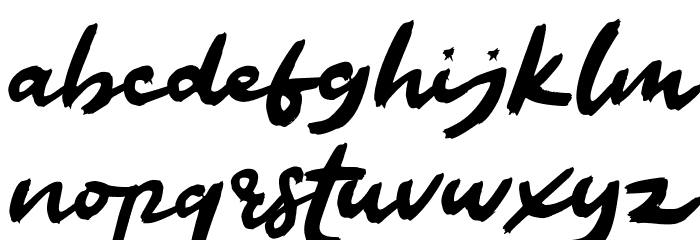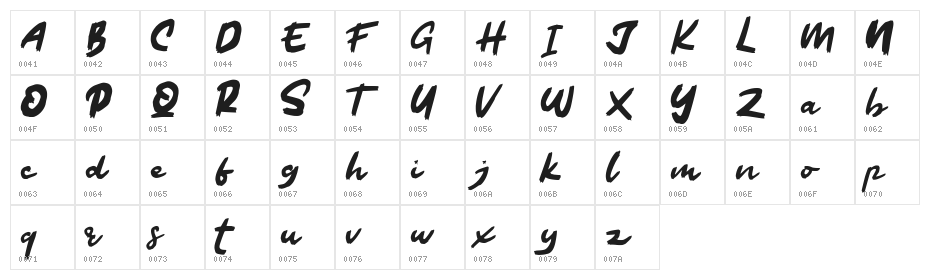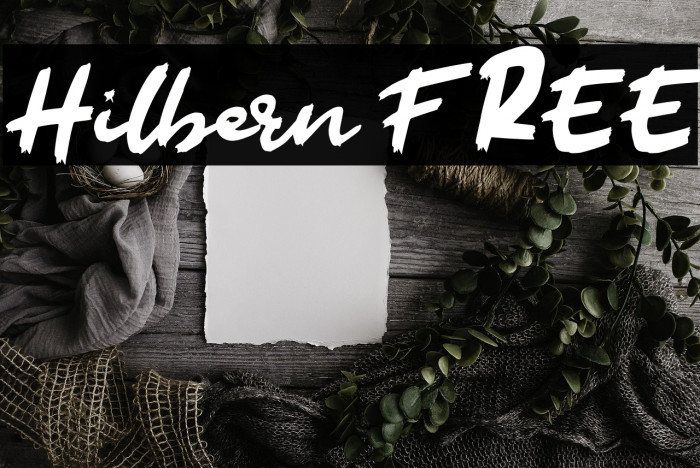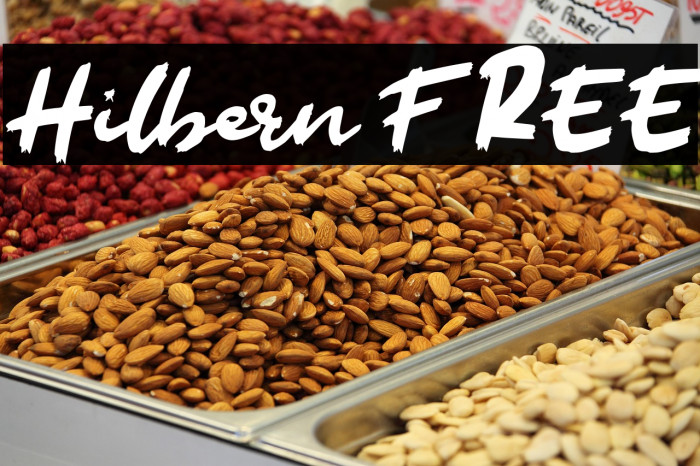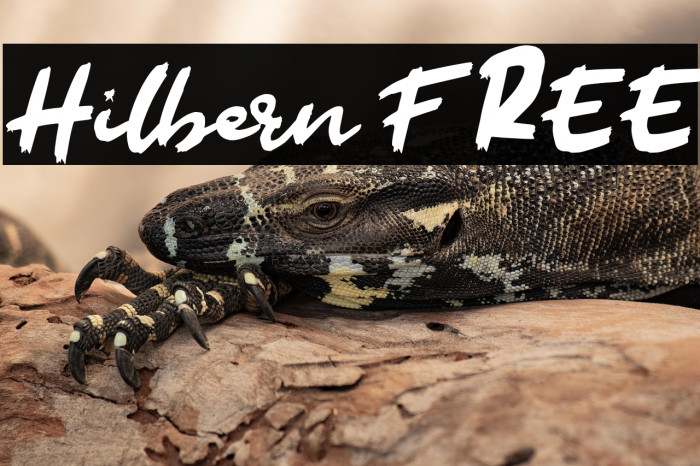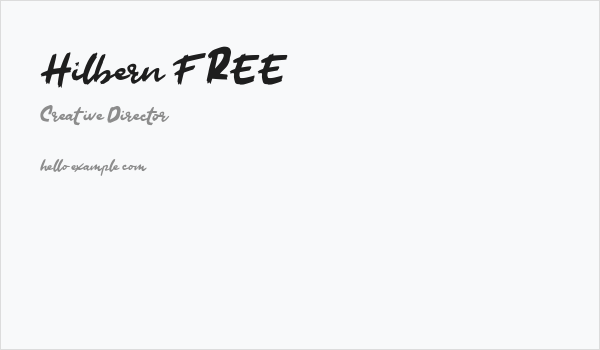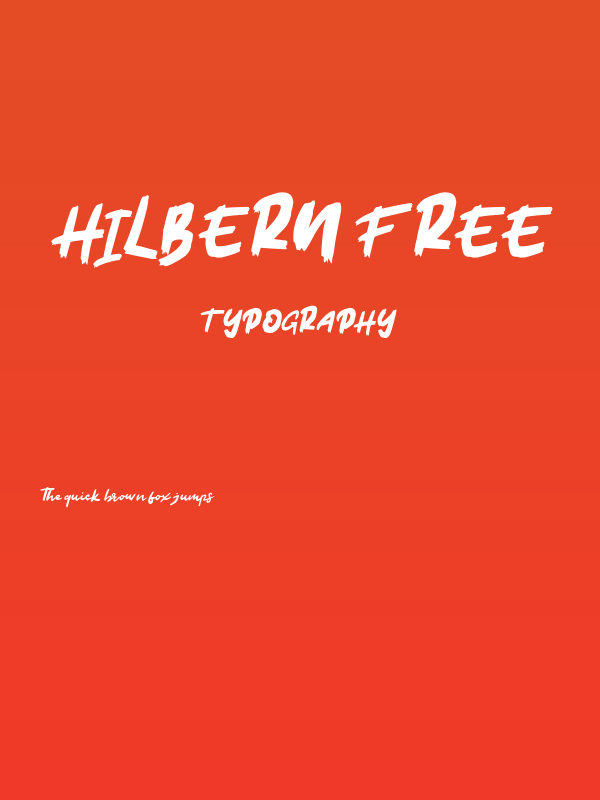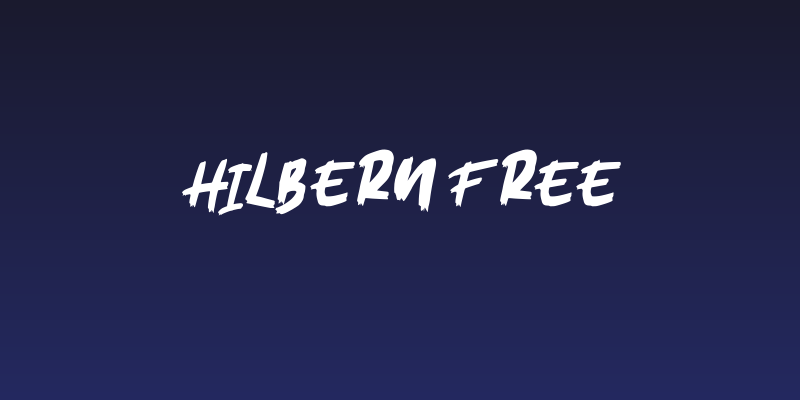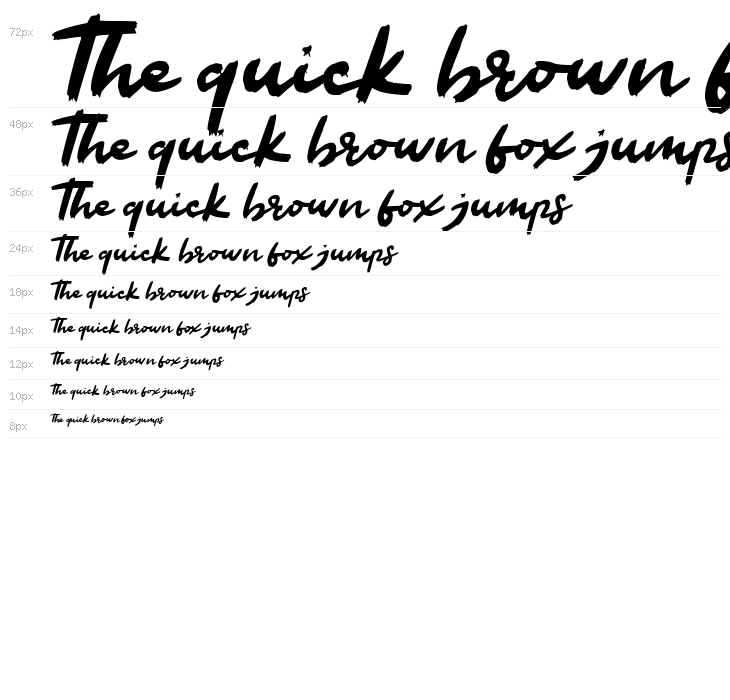
Hilbern FREE Font
This font features a bold, expressive brush style that exudes energy and dynamism. The strokes are thick and uneven, giving it a hand-painted appearance that is both artistic and spontaneous. The uppercase and lowercase letters maintain a consistent flow, with some characters featuring distinctive flourishes and angles that add to its unique charm. The numbers and special characters are equally bold, ensuring they stand out in any design. This font is perfect for projects that require a strong, impactful visual presence.
A bold, expressive brush-style font with a hand-painted look.
- Proposed Projects: Ideal for branding, posters, album covers, and any design needing a bold, artistic touch.